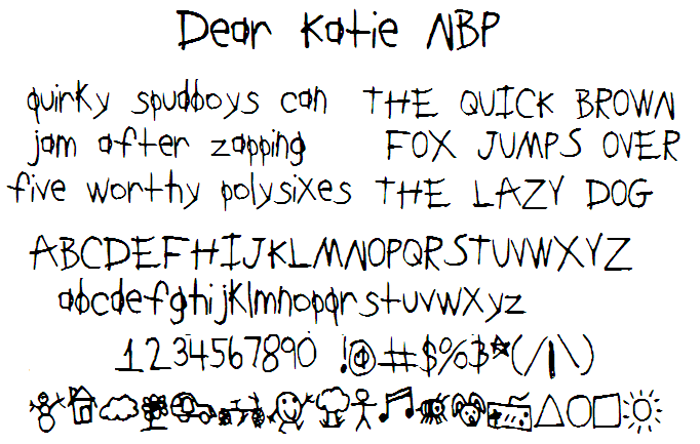
DearKatieNBP Font
A 2nd grade boy's handwriting. The "sequel" to Kindergarten NBP ;)
it's soo silly... in like a cute way:p
this is cool=
so sweet
I personally think this is cute ^-^